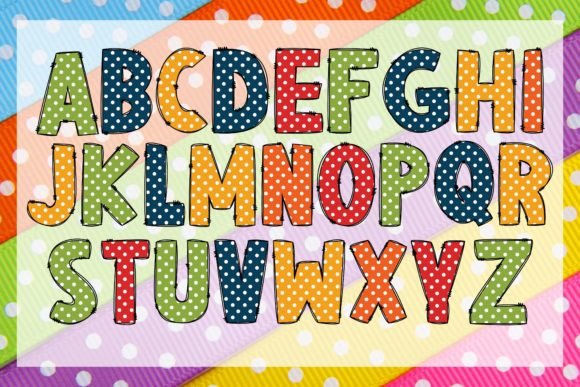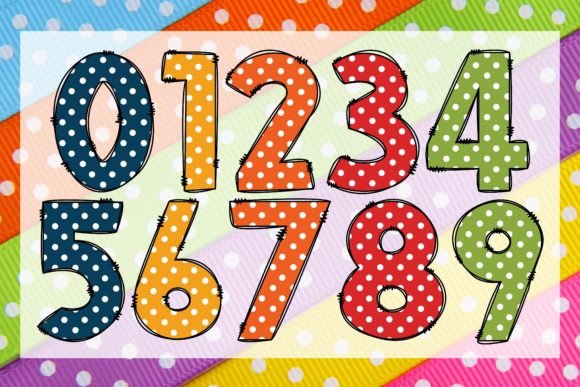
Discover the Charm of Dots Font: A Sweet and Friendly Color Font
Are you tired of using the same old fonts in your designs? Look no further than Dots Font, a sweet and friendly color font that’s sure to add a touch of whimsy to your projects. With its natural and unique style, Dots Font is incredibly fitting for a large pool of designs, and the only limit is your imagination!
What is Dots Font?
Dots Font is a color font that features a distinctive dotted design. Its sweet and friendly aesthetic makes it perfect for a wide range of projects, from crafting and scrapbooking to digital design and branding. The font’s unique style is sure to grab attention and add a touch of personality to your work.
Key Features of Dots Font
- Unique and Natural Style: Dots Font features a distinctive dotted design that’s both natural and unique.
- Color Font: Dots Font is a color font, allowing you to add a pop of color to your designs.
- Versatile: Dots Font is incredibly versatile and can be used in a wide range of projects, from crafting and scrapbooking to digital design and branding.
Uses for Dots Font
So, what can you use Dots Font for? The possibilities are endless! Here are a few ideas to get you started:
- Crafting and Scrapbooking: Dots Font is perfect for crafting and scrapbooking projects, adding a touch of whimsy and personality to your pages.
- Digital Design: Use Dots Font in your digital designs, such as social media graphics, blog posts, and website headers.
- Branding: Add a touch of personality to your brand with Dots Font, using it for logos, business cards, and more.
- Paper Crafting: Dots Font is perfect for paper crafting projects, such as card making and gift tags.
Tips for Using Dots Font
Here are a few tips for using Dots Font in your designs:
- Experiment with Colors: Dots Font is a color font, so don’t be afraid to experiment with different colors and combinations.
- Mix and Match: Mix and match Dots Font with other fonts and design elements to create a unique look.
- Keep it Simple: Don’t overcomplicate your design – keep it simple and let Dots Font shine.
In conclusion, Dots Font is a sweet and friendly color font that’s perfect for designers and crafters looking to add a touch of whimsy to their projects. With its natural and unique style, Dots Font is incredibly fitting for a large pool of designs, and the only limit is your imagination! So why not give Dots Font a try and see what amazing creations you can come up with?
Whether you’re a seasoned designer or a crafty beginner, Dots Font is sure to inspire you to create something truly special. So go ahead, get creative, and have fun with Dots Font!